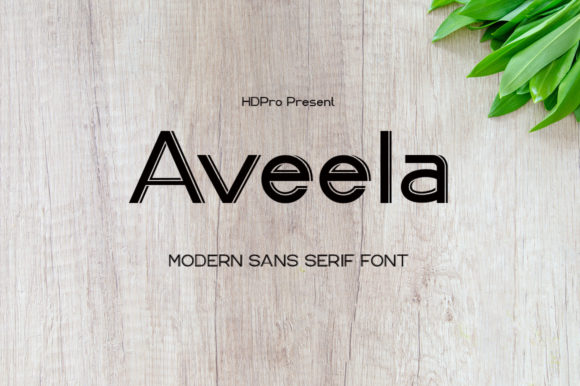
The Designer’s Delight: Uncovering the Charm of Aveela Font
I’ll never forget the time I was working on a branding project for a trendy new cafe. My client wanted a font that was modern, yet approachable; sleek, yet warm. I spent hours scouring the internet for the perfect match, but nothing seemed quite right. That was until I stumbled upon Aveela Font. ✨
This modern sans serif font with an organic feel has been a game-changer for me and many designers, crafters, and creative hobbyists. In this article, I’ll share my honest review, a practical guide on how to use Aveela Font, and some helpful tips and tricks.
An Honest Review of Aveela Font
- ✨ Light and airy feel: Aveela Font has a wonderful, effortless charm that’s perfect for designs that need a touch of elegance.
- ✅ Highly legible: The font’s clean lines and simple shapes make it easy to read, even at small sizes.
- 💡 Versatile: Aveela Font works beautifully for both digital and print projects, from social media graphics to business cards and brochures.
While Aveela Font is an excellent choice, it’s not without its quirks. 🤔 For example:
- ⚠️ Limited language support: Aveela Font primarily supports English and other European languages, so it may not be the best choice for projects that require extensive language support.
- ⚠️ No italic version: Unfortunately, Aveela Font doesn’t come with an italic version, which might limit its use in certain design contexts.
The Story Behind Aveela Font
Aveela Font was designed by a team of creatives who wanted to create a font that was both modern and approachable. Inspired by the natural world, Aveela Font features clean lines, simple shapes, and a light, airy feel. 💚
The design team drew inspiration from the curves and contours of leaves, flowers, and other organic forms. The result is a font that’s both elegant and effortless – perfect for designs that need a touch of sophistication.
Q: What is Aveela Font?
A: Aveela Font is a modern sans serif font with an organic feel. It’s perfect for designs that require a touch of elegance and sophistication.
Q: What languages does Aveela Font support?
A: Aveela Font primarily supports English and other European languages.